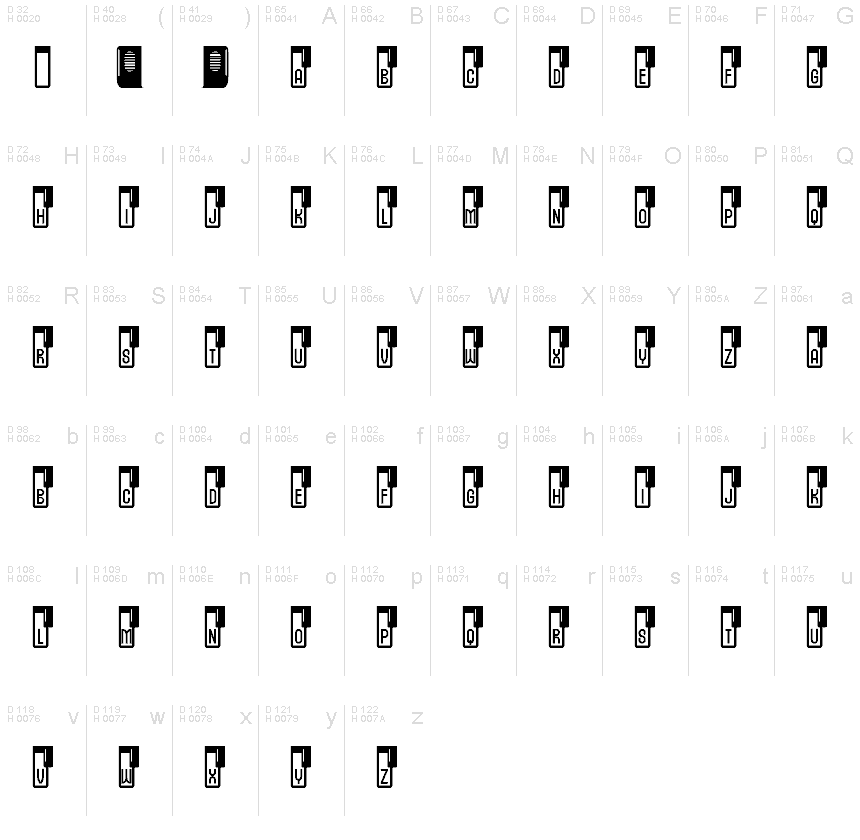
Klavier Regular
Klavier font is a decorative display typeface by Vladimir Nikolic with unique geometric elements. The condensed font carries an Art Deco influence and has a musical theme, which is specifically depicted via its creative integration with imagery.